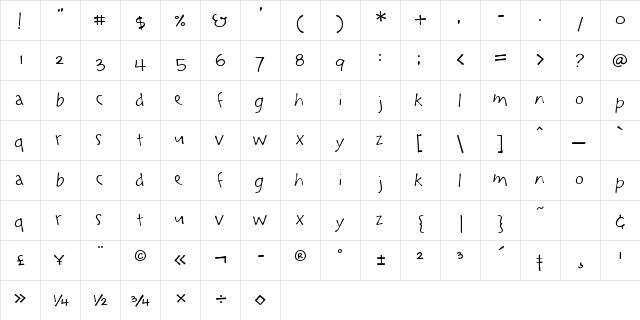
Doodolonomy Fred Regular
Design Context for Doodolonomy Fred Typeface
Doodolonomy Fred takes a measured approach to typography — its balanced proportions and neutral character make it a reliable workhorse for both digital and print work.